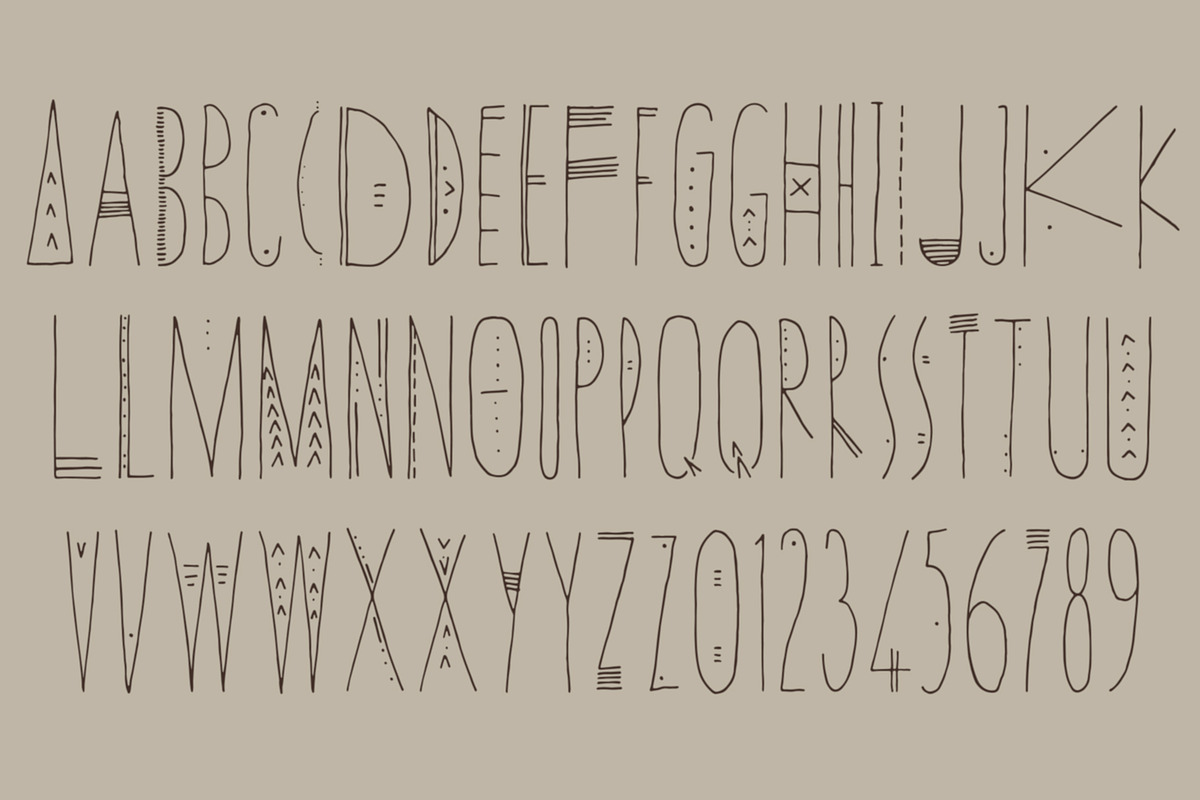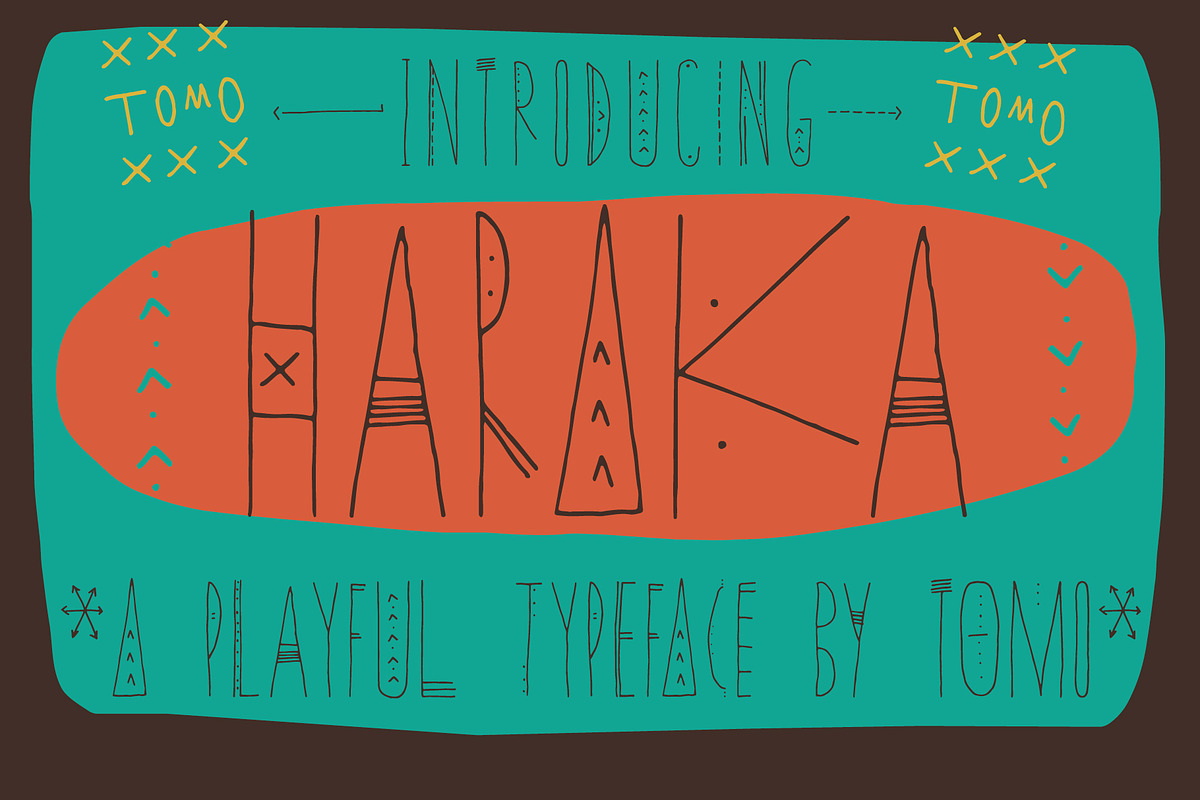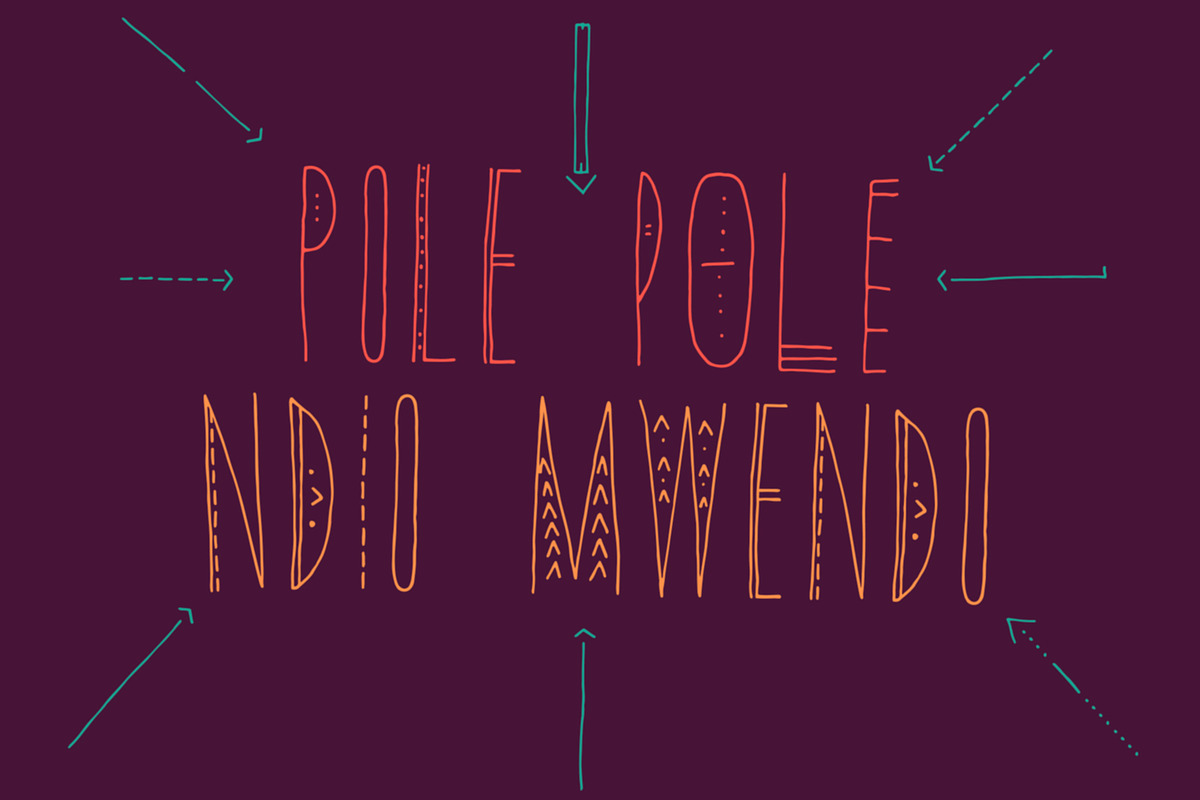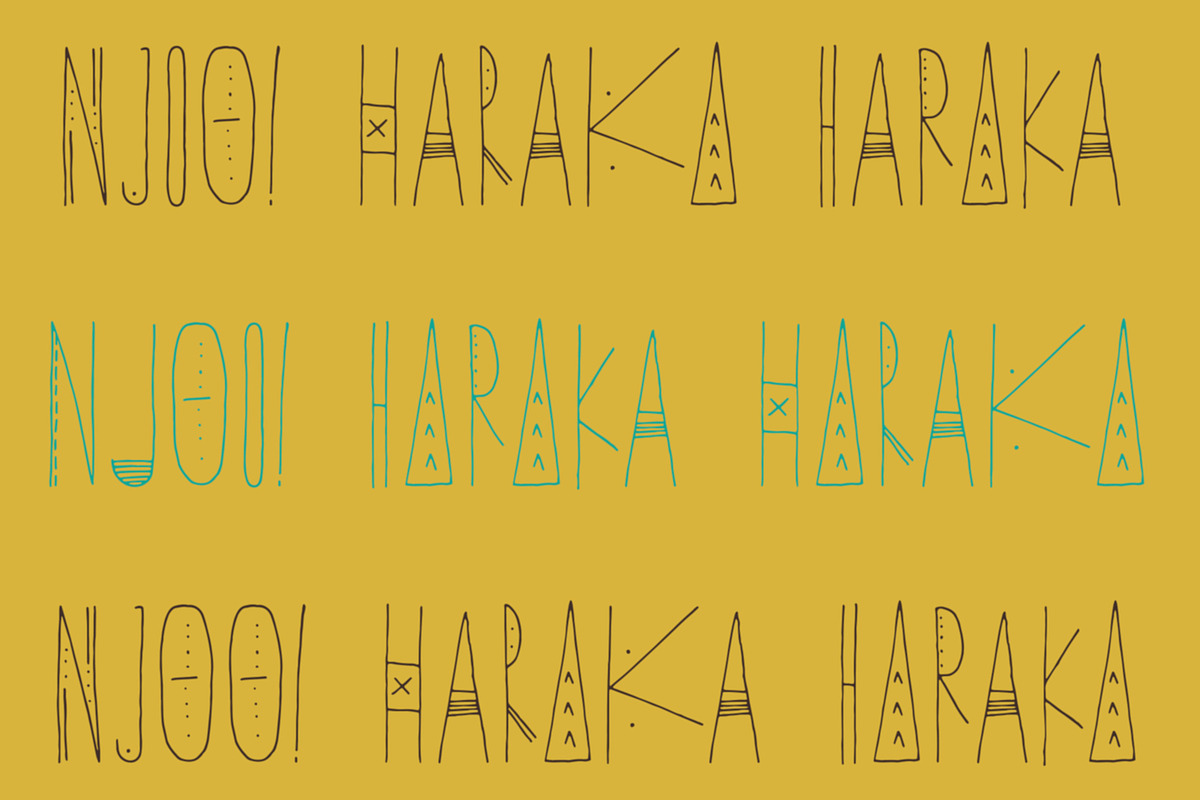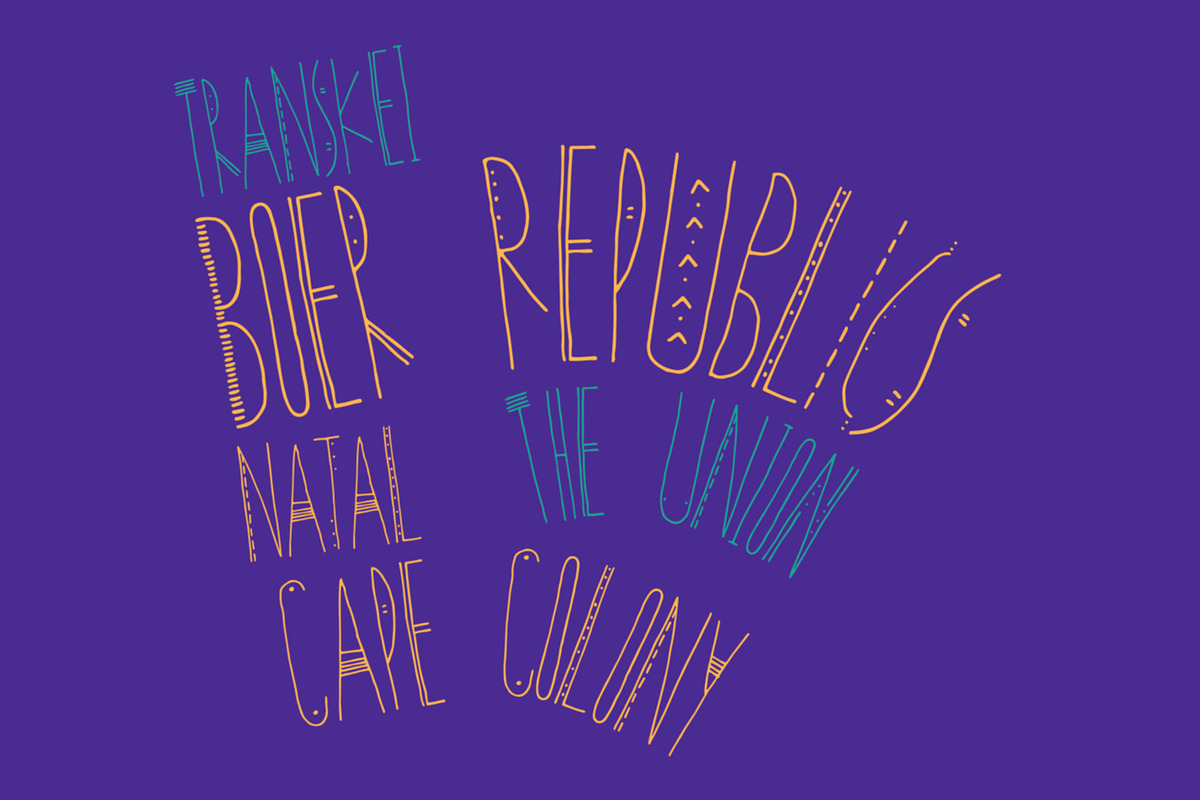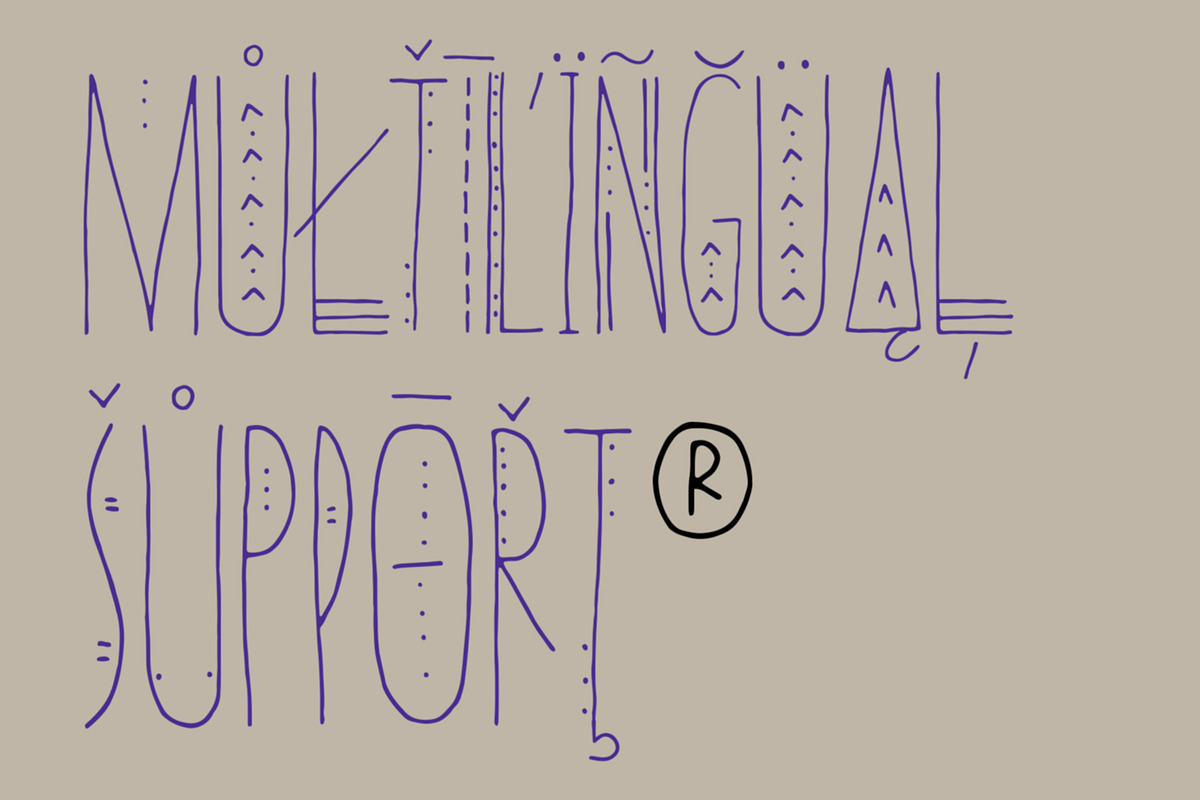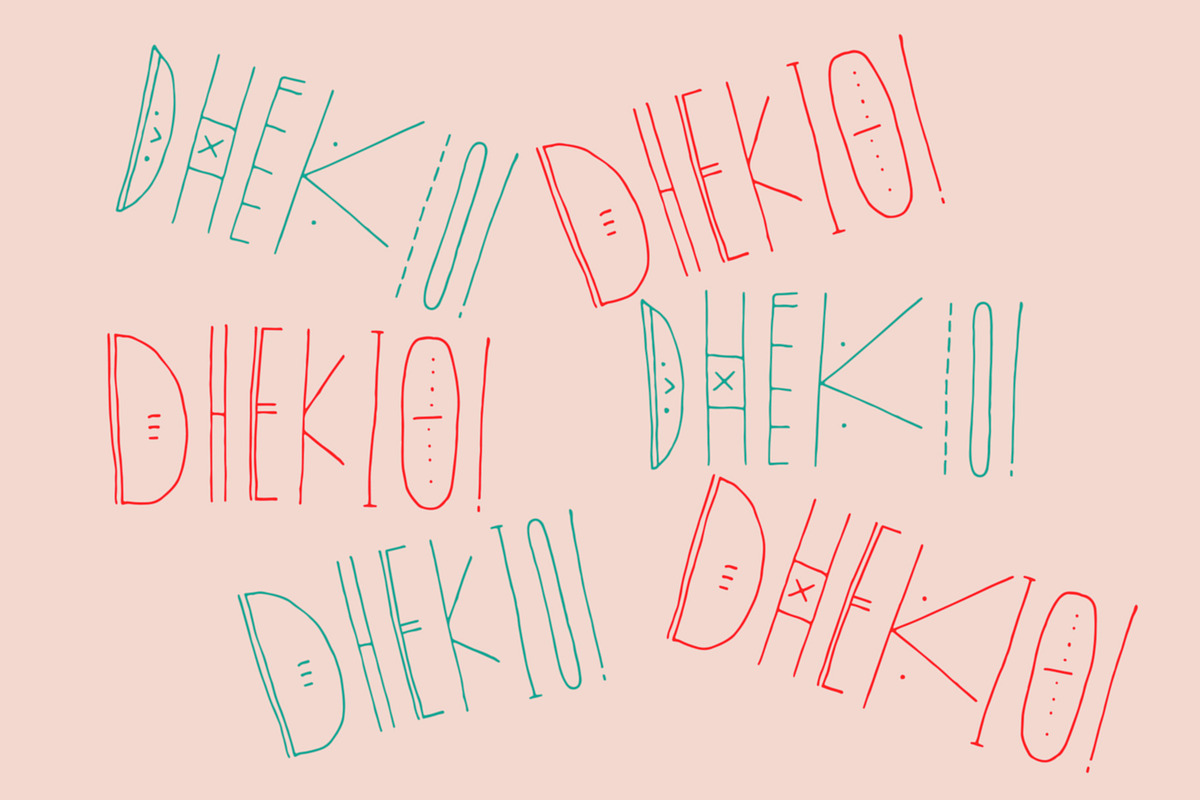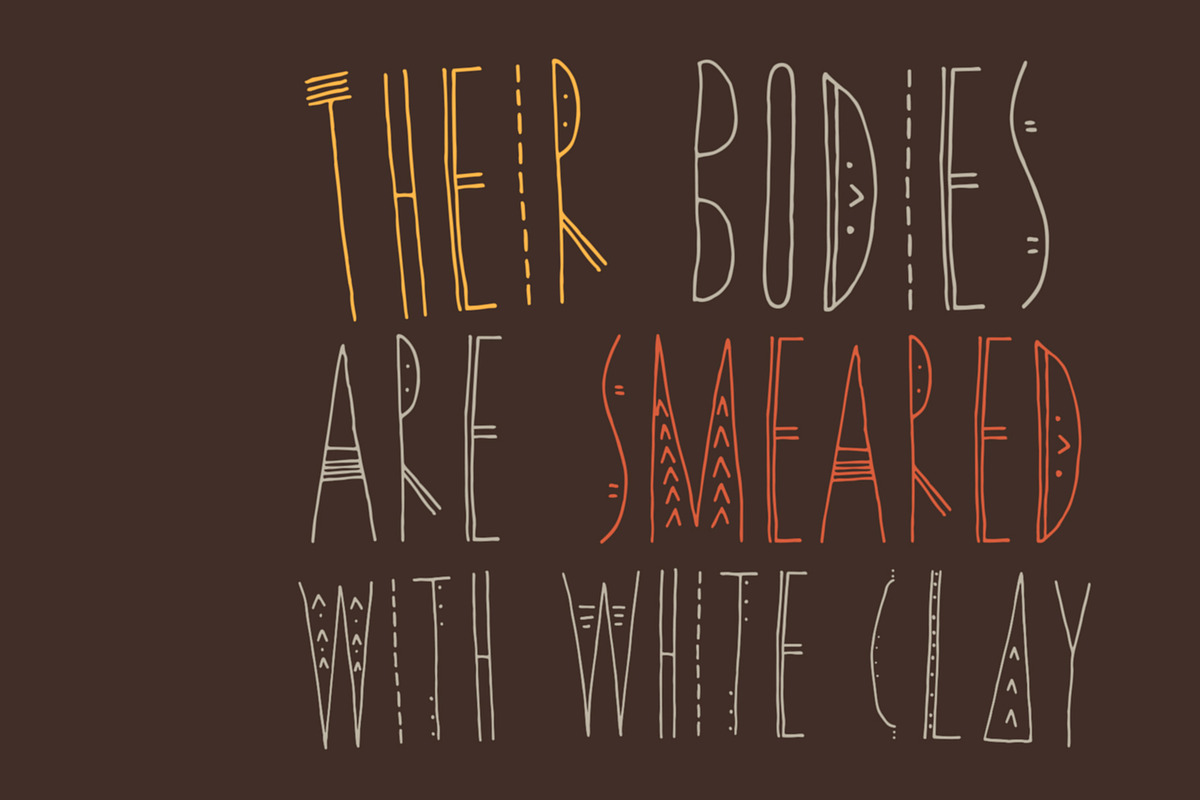
TOMO Haraka
Say hi to TOMO Haraka - a playful thin line decorative typeface. Haraka is a linear font in folk style, uppercase only decorated with geometric elements. Suitable for lettering posters, music albums, tattoos and photo overlays. Enjoy!